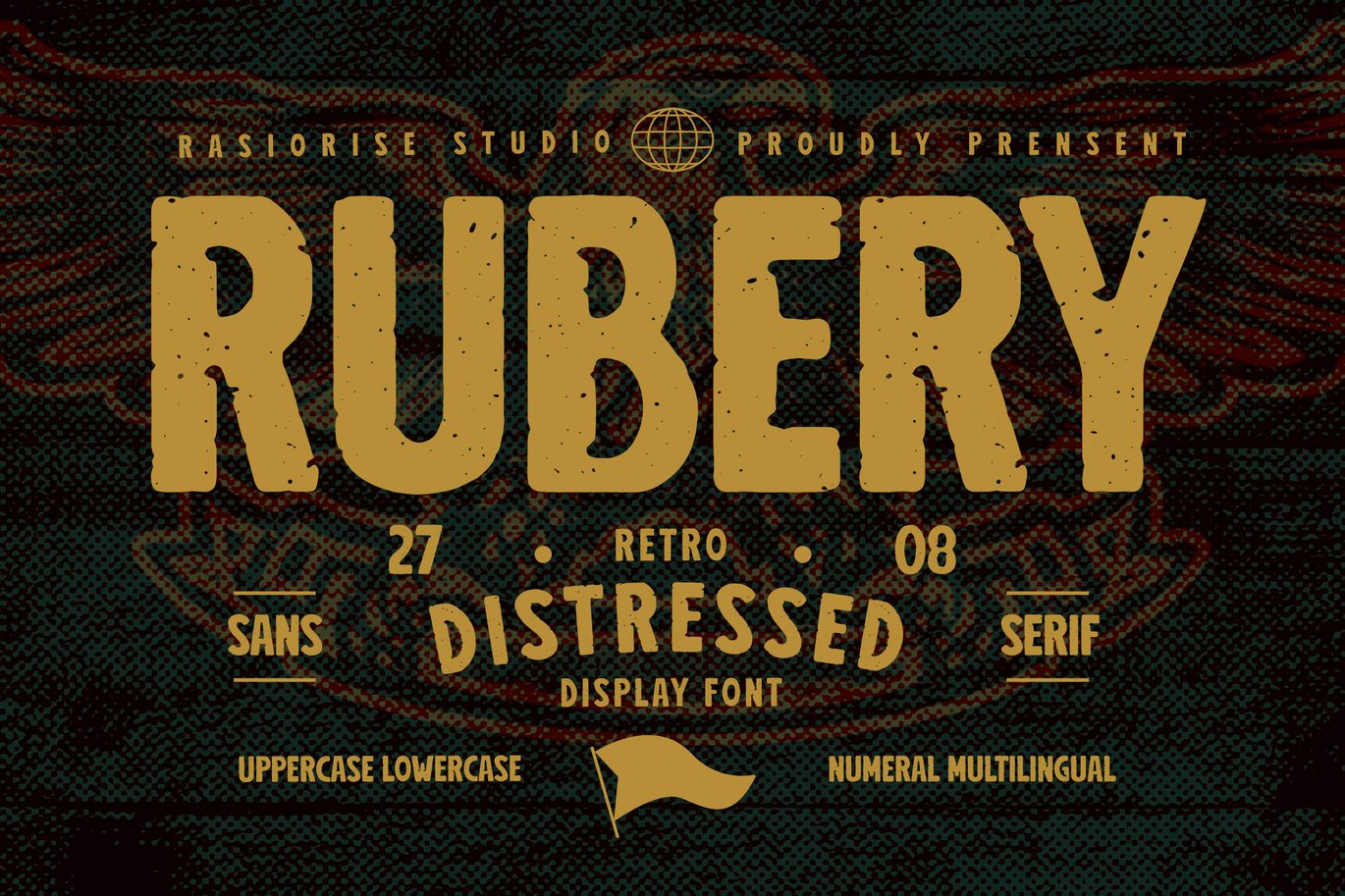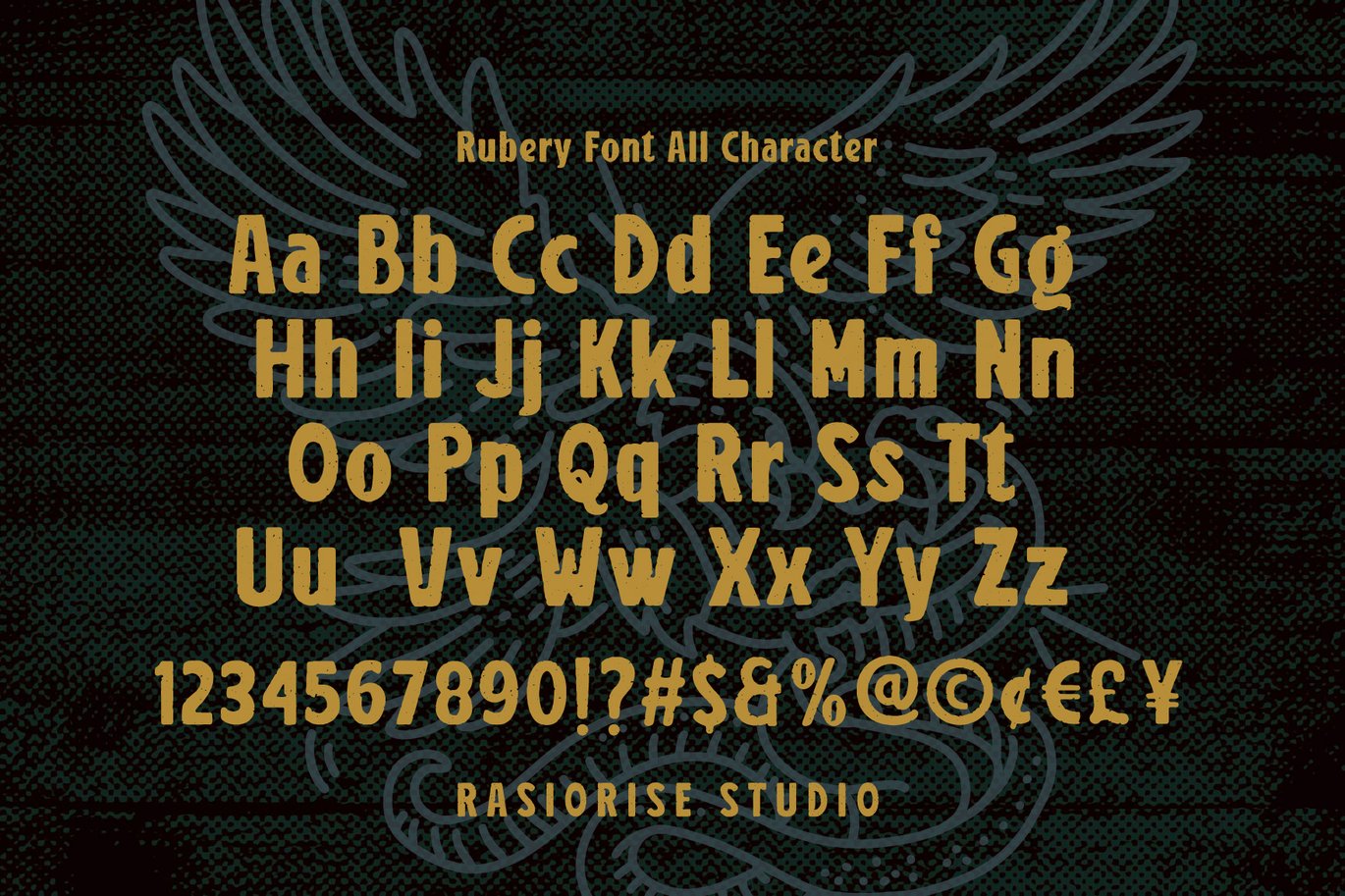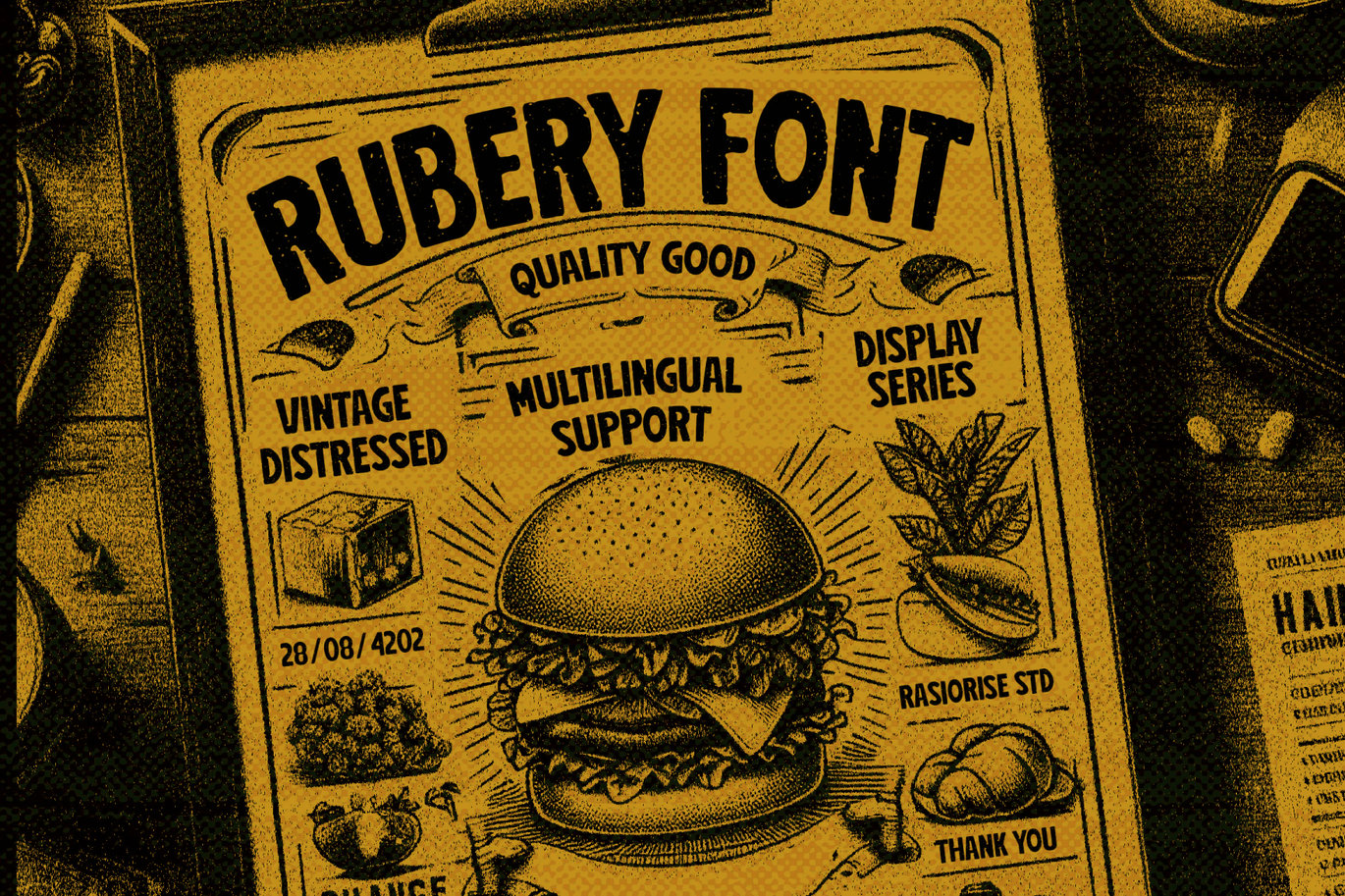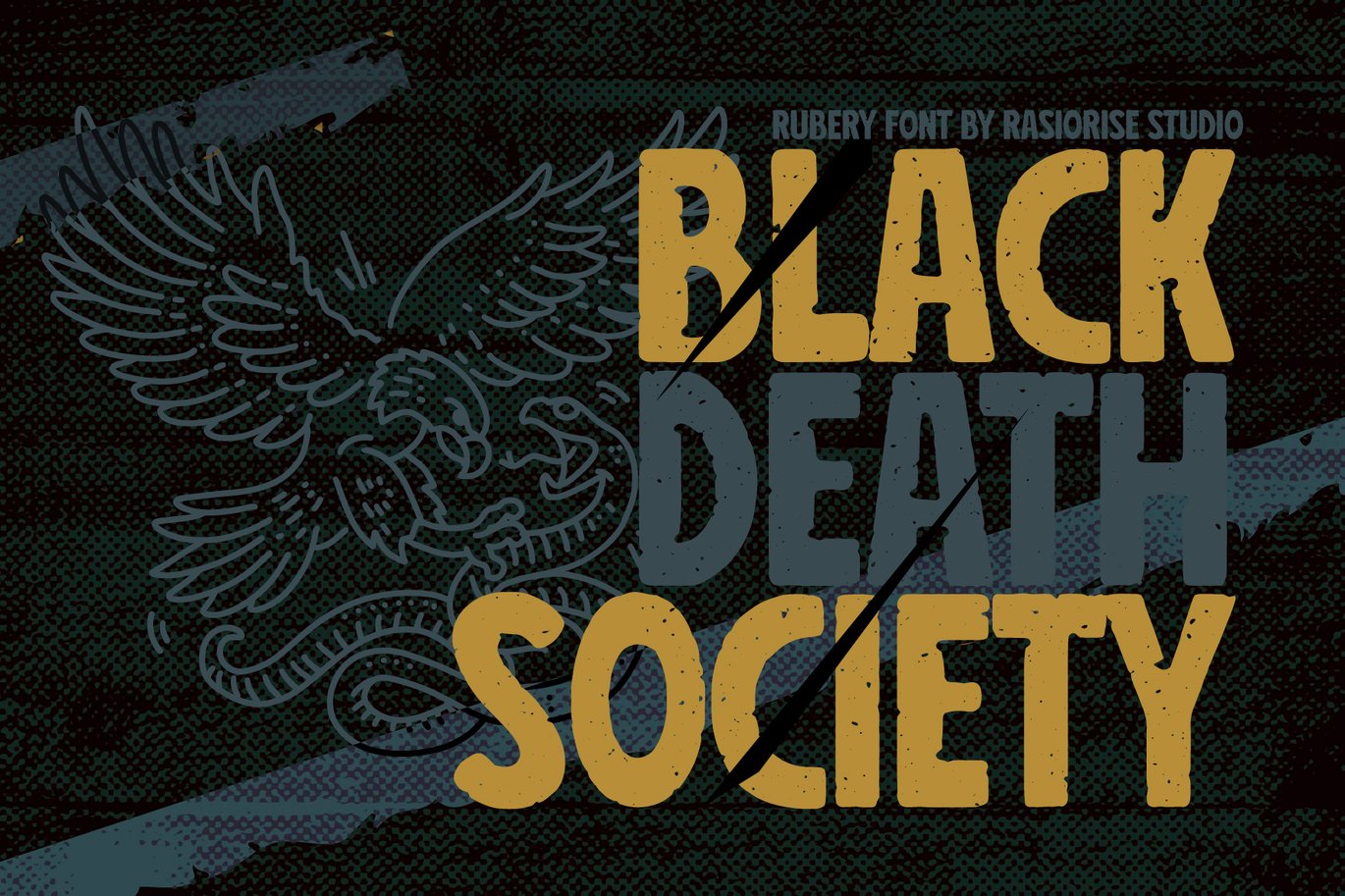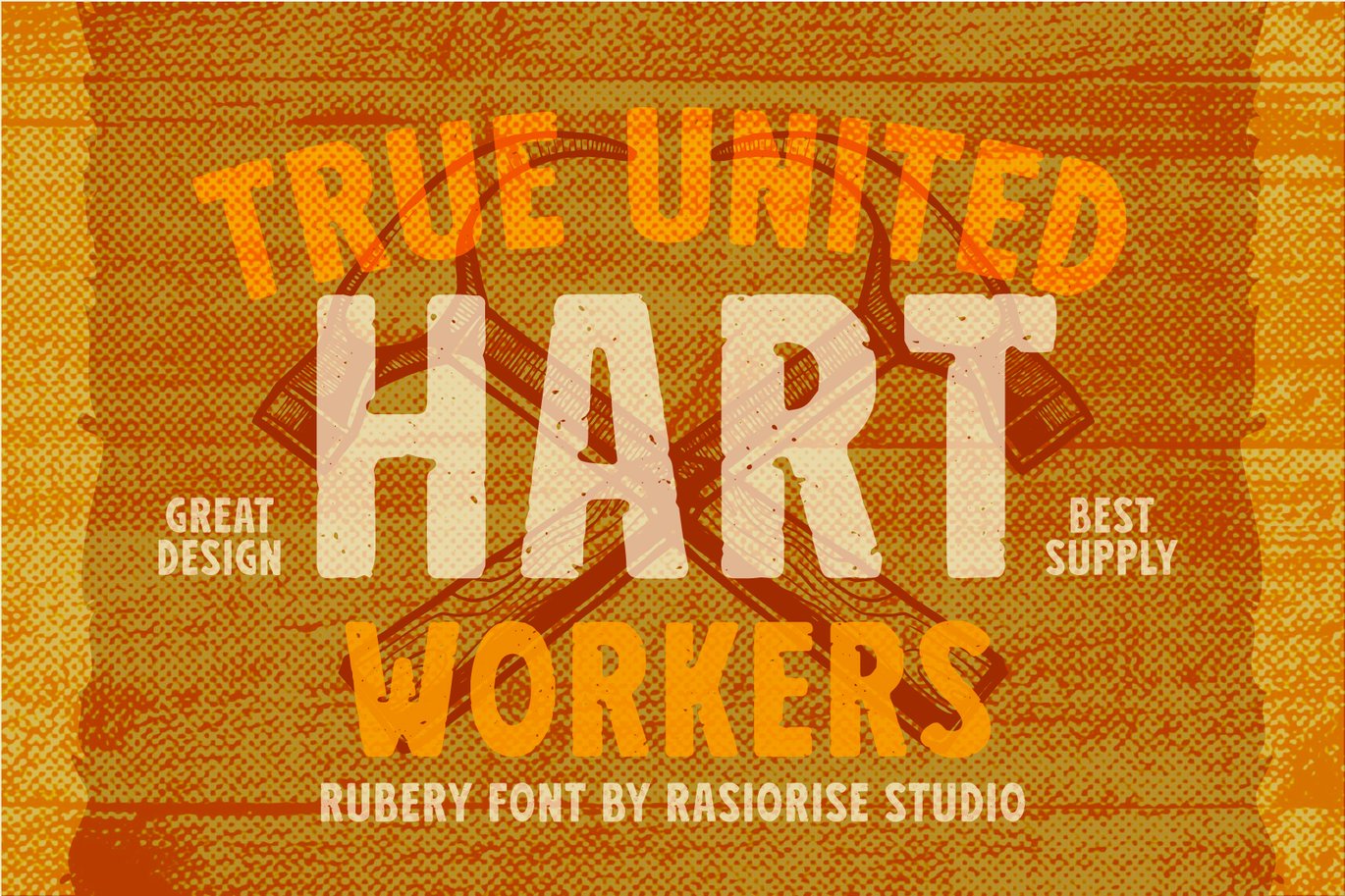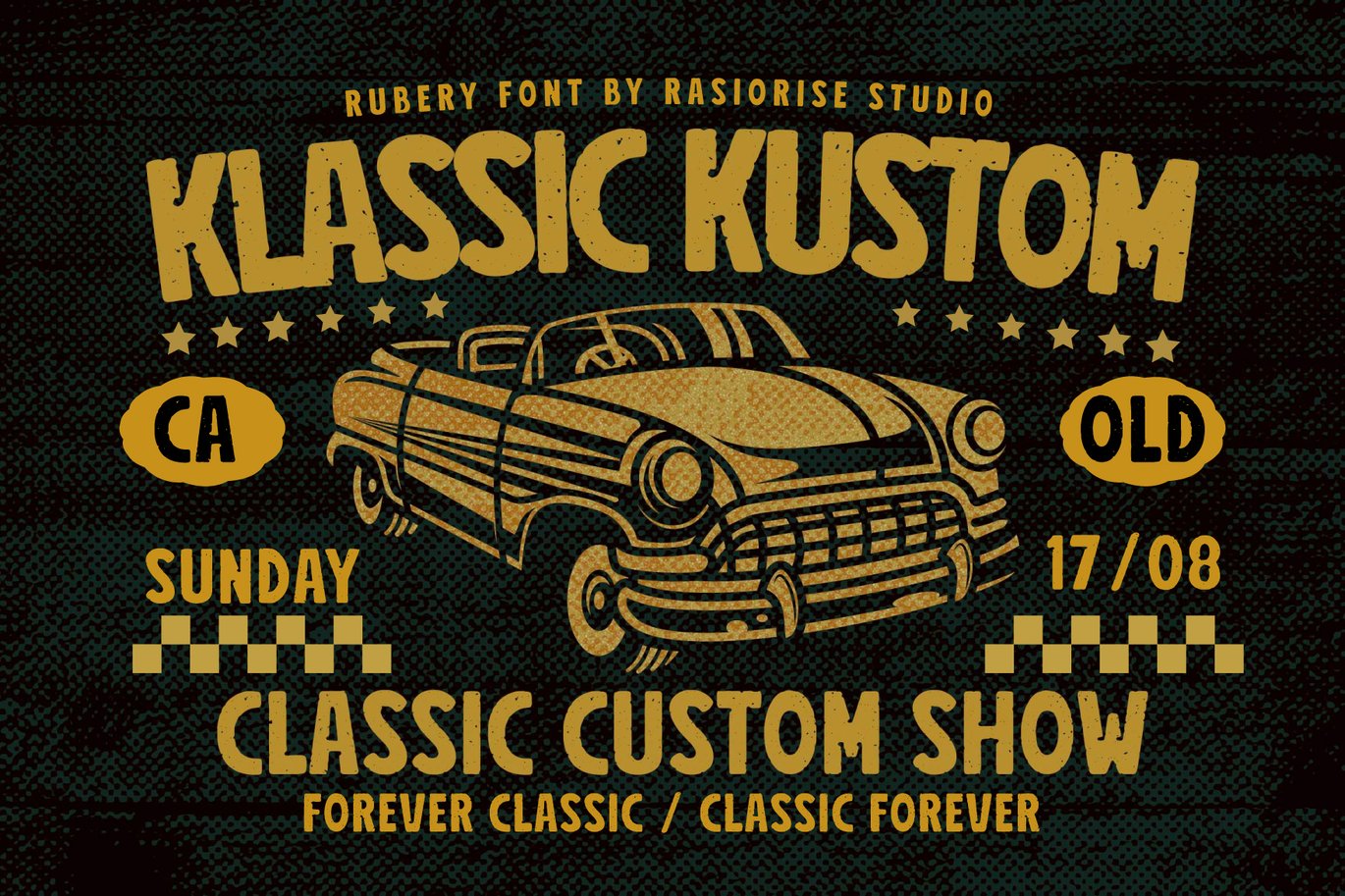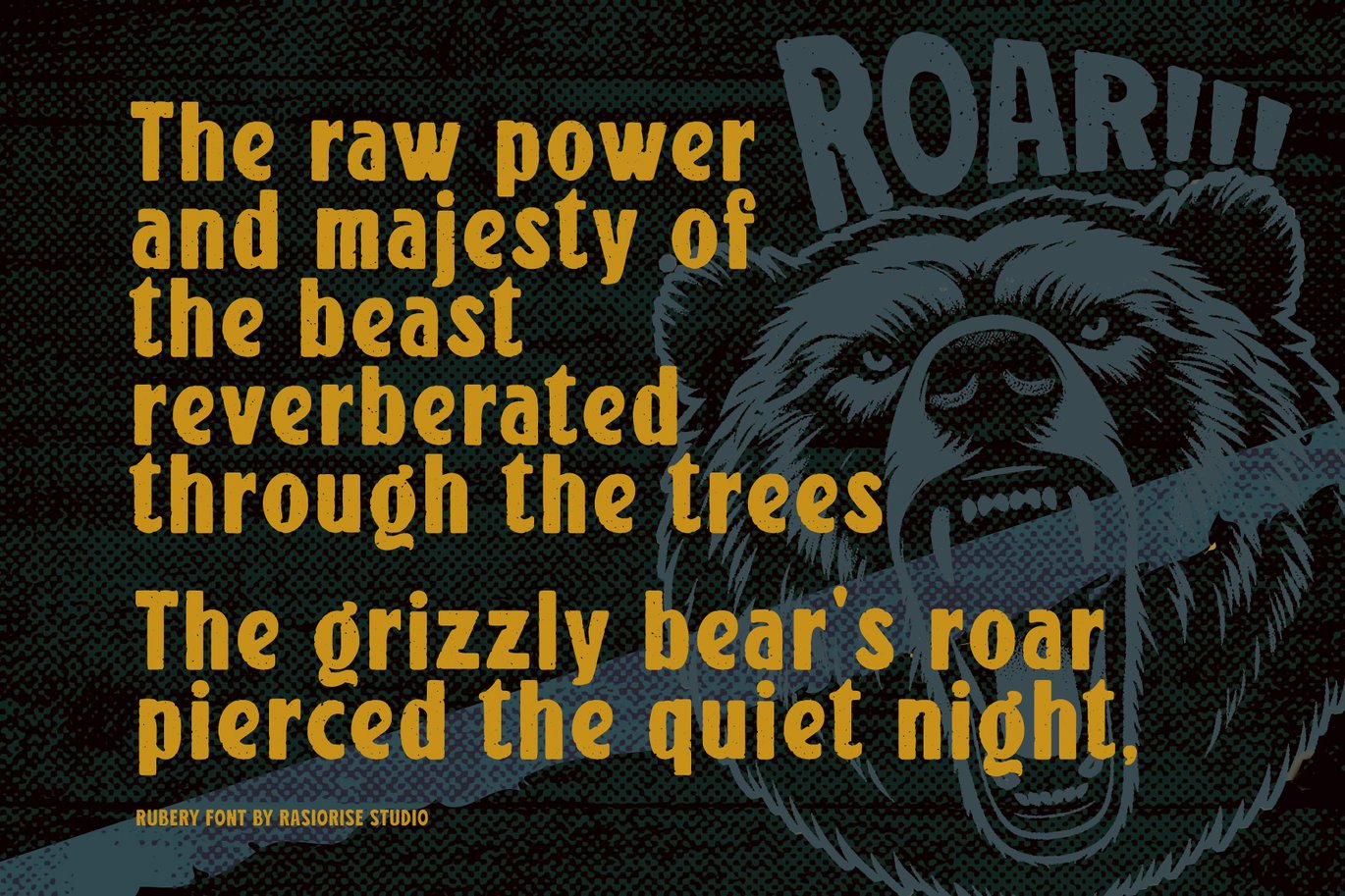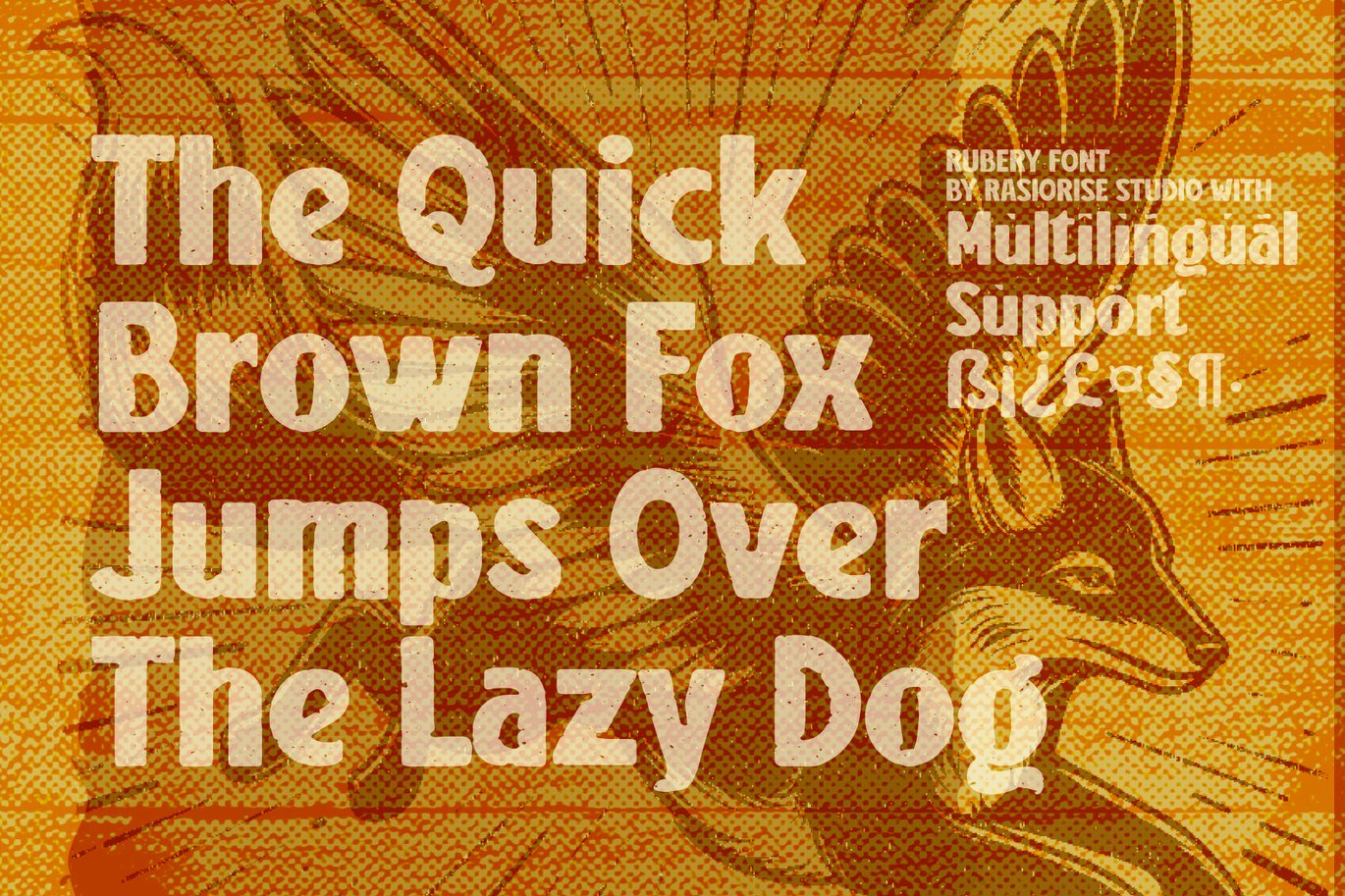
Rubery – Distressed Sans Serif Font
Presenting Rubery – Distressed Sans-Serif Font By Rasiorise Studio
Rubery Font has been released for those of you who are looking for a Distressed Sans-Serif is a unique typeface that a raw texture, rough aesthetic, blending the shape of a sans-serif font with an intentionally weathered or grunge appearance, The font is inspired by the Raw Comic and Headline Sans-Serif Grunge font with rough texture free style with a few combine to turn them into a bit of a Vintage Rough style. Unleash your creativity at Vintage and oldskoll raw badge text with Rubery Font, perfect for adding a Vintage/ Classic touch to any projects!
Rubery Font very suitable for Logotype, Book Cover, Badge/Emblem Design and Logo, Gift Card, Gretting Card, Poster, Merchandise, Packaging Label, and much more.